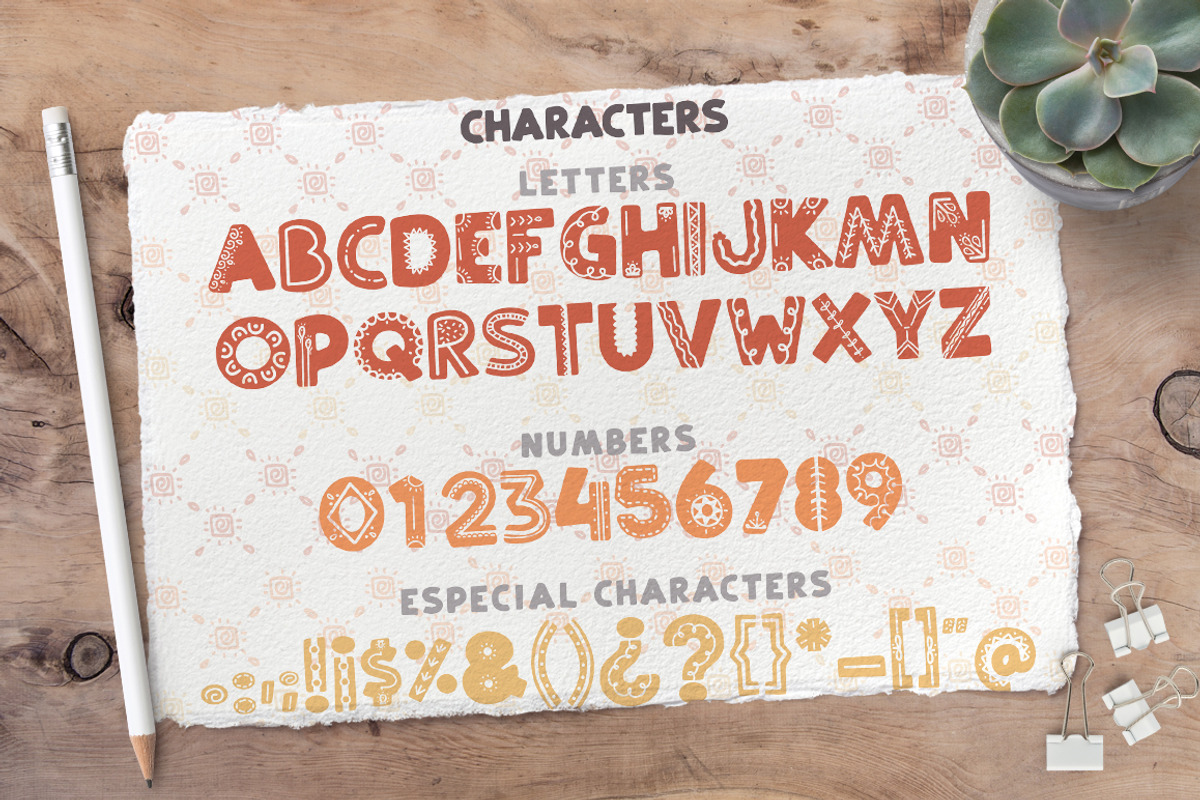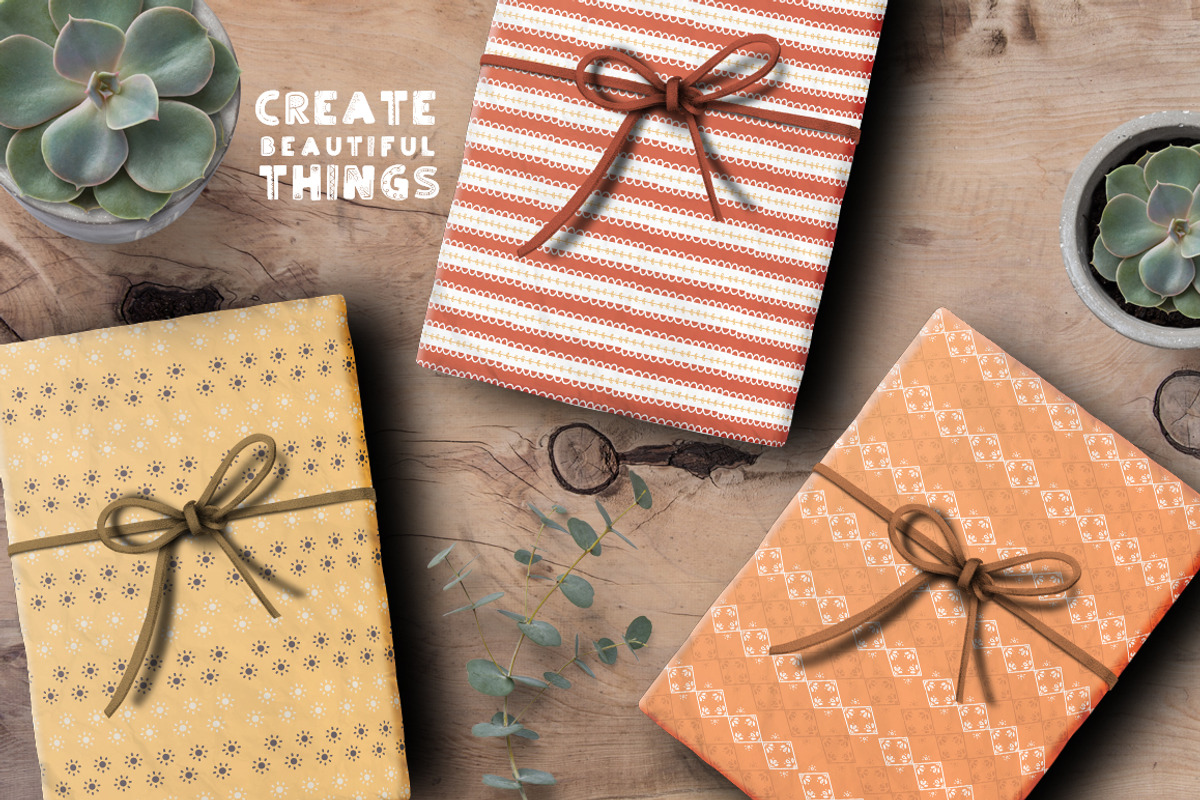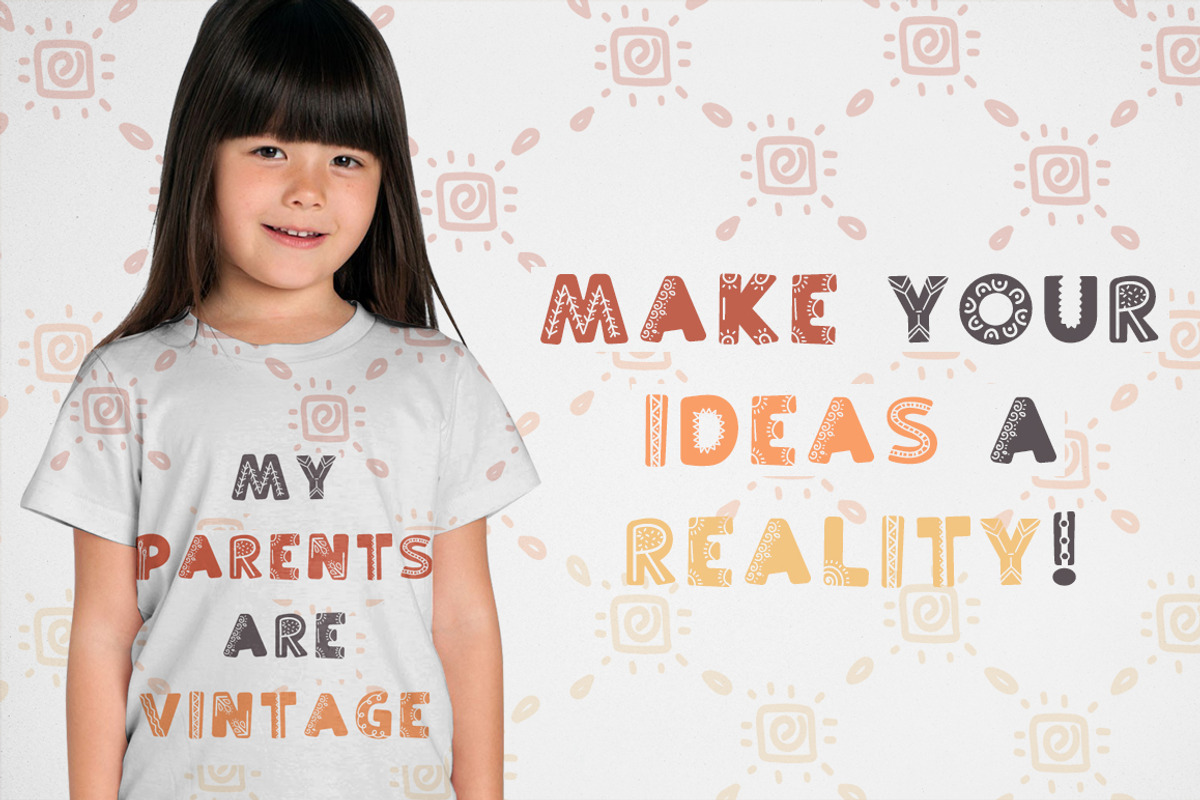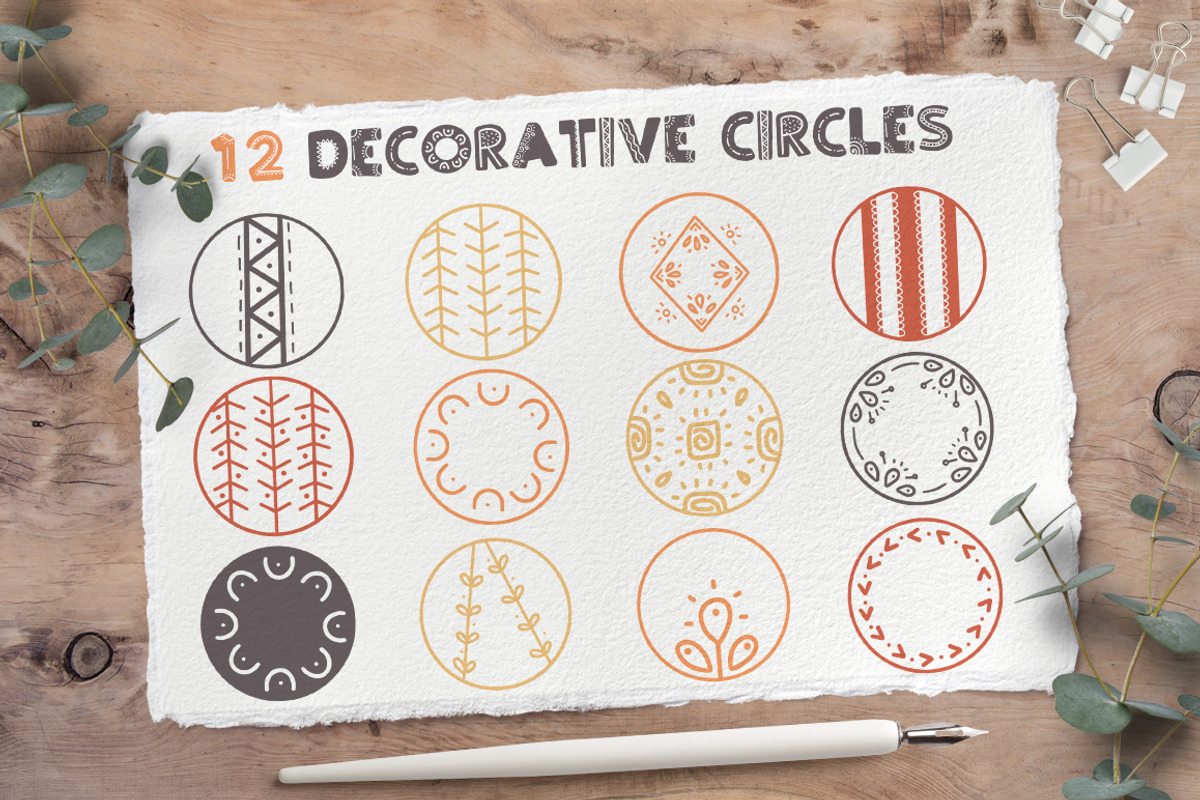
Ethnic love font BUNDLE+ 40 ELEMENTS
ETHNIC LOVE BUNDLE - FONT, PATTERNS, BRUSHES AND MORE!
Hey! If you follow me, you probably know how much I love this doodle and playful fonts, so this time I present to you: ethnic love! - A new font with a lot of personality that comes with the most beautiful patterns, awesome illustrator brushes (only compatible with Illustrator CC+) and some unique decorative circles. So, as you can see, you'll get the whole package so you can create anything!
Create invitations or cards. Follow the ethnic design trend.
Give you social media designs a special touch.
Use this to create awesome shirts, blankets and more!
This is a multilingual font.